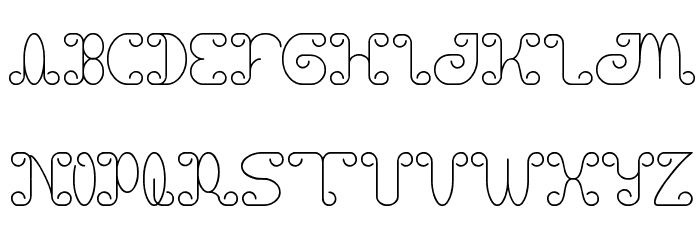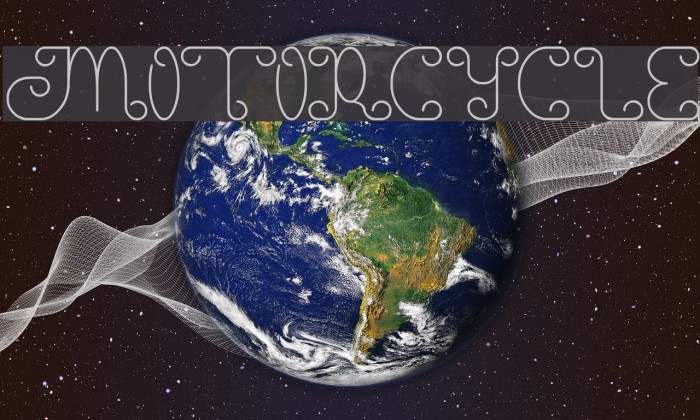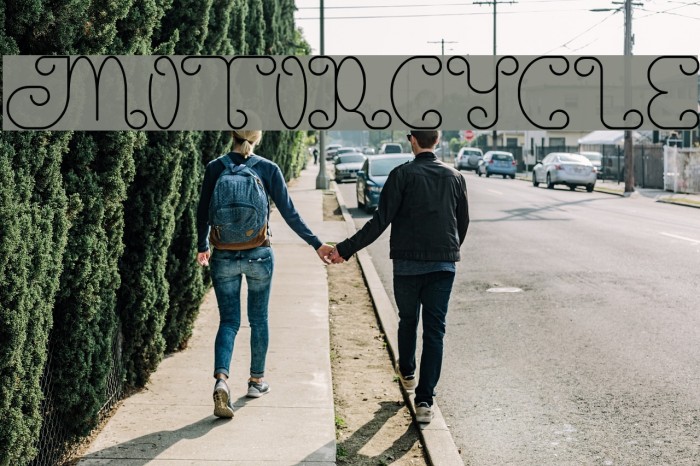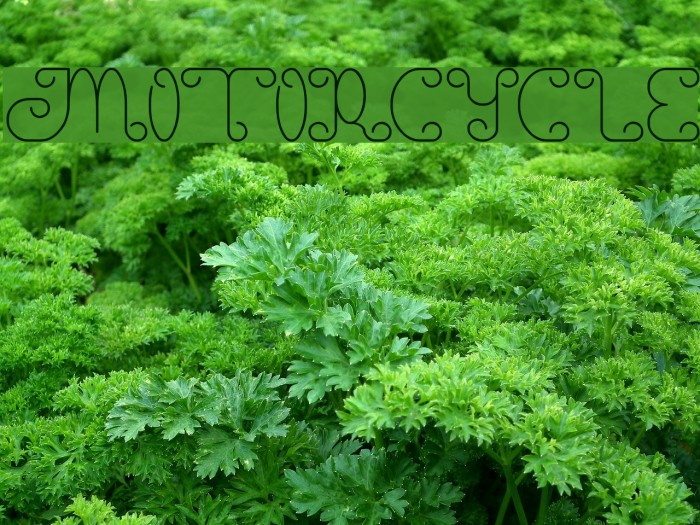
motorcycle Font
This font features an intricate and decorative style, characterized by its swirling, looped embellishments at the ends of each letter. The uppercase letters are consistent in height and width, creating a harmonious and balanced appearance. The design is playful yet elegant, making it suitable for creative and artistic projects. The font's unique style captures attention with its ornate details, making it ideal for use in designs that require a touch of sophistication and flair. Its distinctive look is reminiscent of vintage or retro aesthetics, while maintaining a modern twist.
An ornate and decorative font with swirling embellishments.
- Proposed Projects: Ideal for wedding invitations, greeting cards, branding, and decorative posters.
- Use Case: Logos, Headlines, Decorative text